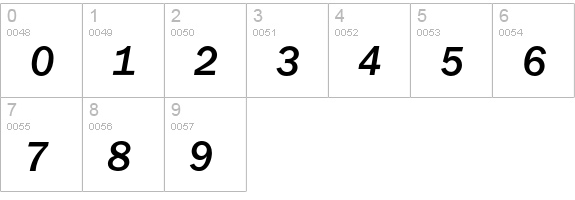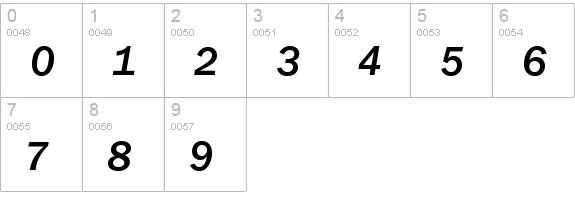
Franklin Gothic* Medium Italic Font Details
Franklin Gothic* Medium Italic is a balanced, medium-weight, italic variant in the Franklin typeface family \xE2\x80\x94 well suited to sub-headlines, navigation, and balanced editorial work.
Franklin Gothic Medium Italic is a versatile and modern typeface that exudes a sense of sophistication and elegance. Its slanted style adds a touch of flair to any design while maintaining a professional appearance. The italicized characters of Franklin Gothic Medium Italic flow seamlessly, making it ideal for conveying emphasis and adding a dynamic touch to text. What's even better is that Franklin Gothic Medium Italic is available for free download at FontsMarket.com. This means you can easily access this stylish font and use it in your projects without any cost. Whether you're working on a digital design, print materials, or any other creative endeavor, Franklin Gothic Medium Italic is a fantastic choice that will elevate your work with its sleek and polished look. Don't miss out on the opportunity to enhance your designs with this elegant font that is both visually appealing and freely accessible.